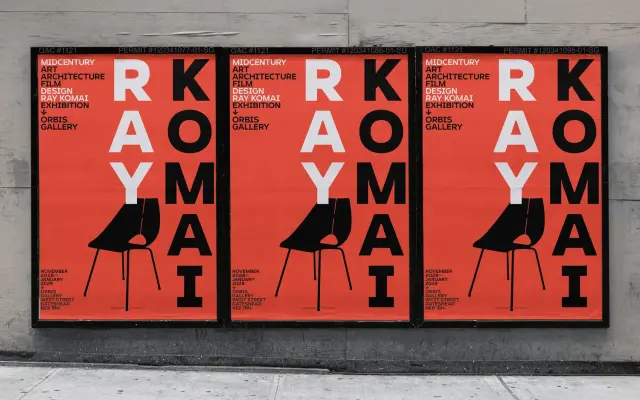
Corbert Text
An optical text variant of Corbert, scaled and refined for sizes 9pt and below across eight weights with matching italics and a semi-condensed style.
Introduced as a companion to the display-oriented Corbert (2013), Corbert Text is a full optical reworking rather than a simple x-height adjustment, with the proportions and spacing tuned for small-size legibility while retaining the original's geometric character. The family spans eight weights from Thin to ExtraBold, each with a matching italic, plus a semi-condensed style for space-restricted layouts. Over 935 characters per style cover Western, Central and Eastern European Latin, with OpenType features including small caps, stylistic alternates, tabular figures, fractions and circled numbers.
Corbert Text is described as having a distinctive geometric character, consistent with a geometric sans classification. It is an optical text variant of the display-oriented Corbert, refined for small sizes.